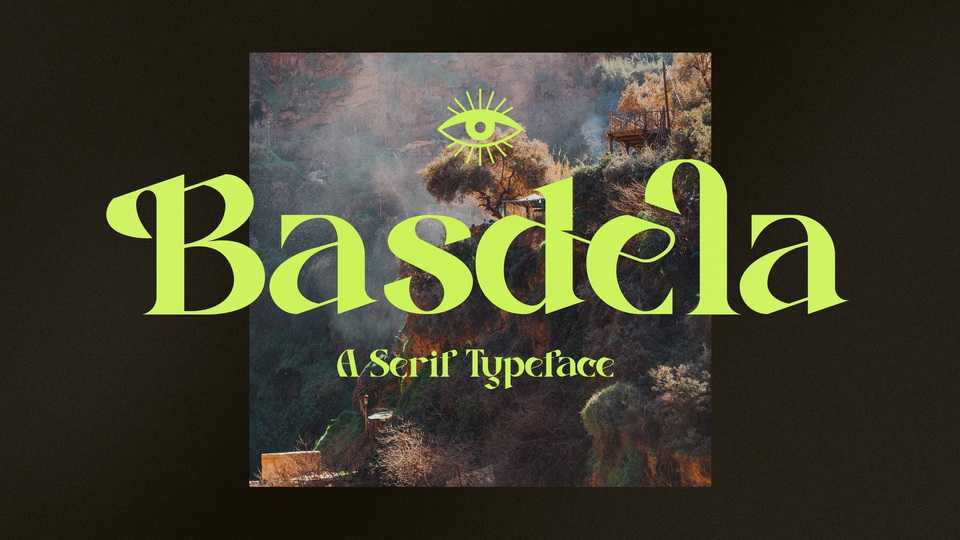
Download Basdela font, a sharp serif typeface that has own unique style and modern look. Basdela font is perfect for an elegant and luxury logo, book or movie title design, fashion brand, magazine, clothes, lettering, quotes, and so much more.